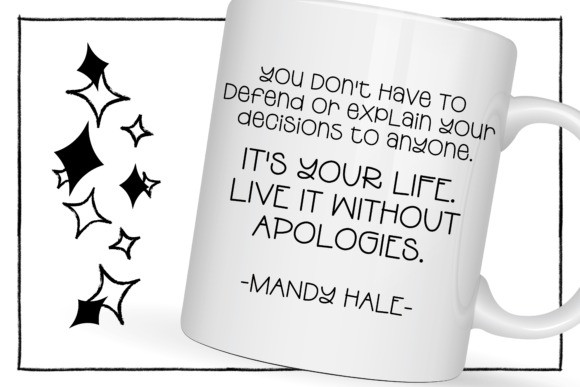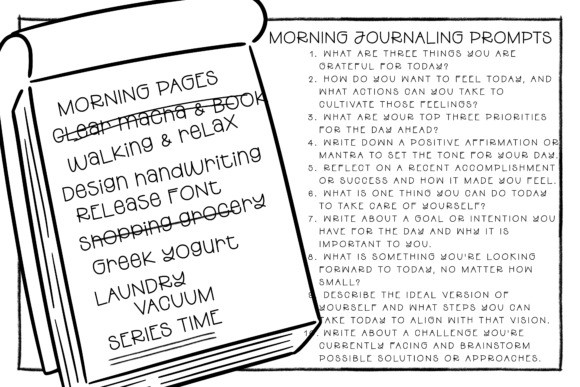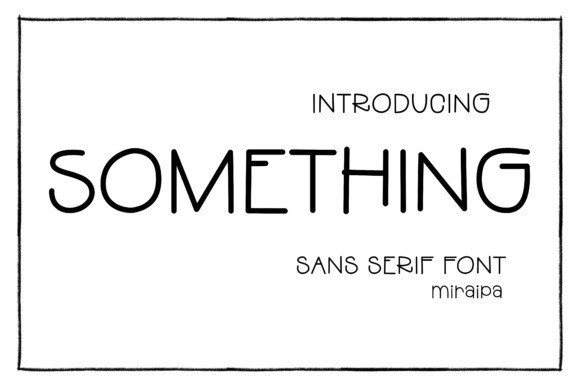
Something Font
Something Font a friendly and neat Handwritten sans serif font style. This font is perfect to adding a cute touch for everything, from t-shirt and coffee mugs to hoodies and tote bags. Also suitable for wonderful quotes, greeting cards, digital planners, and digital notes. Ideal for printing project, digital projects and social posting which craving for a funny and cute final touch. This font offers a full character set, including both uppercase and lowercase letters, along with numerals, and also punctuation and symbols. Furthermore, its multilingual support ensures applicability across diverse content types and languages.